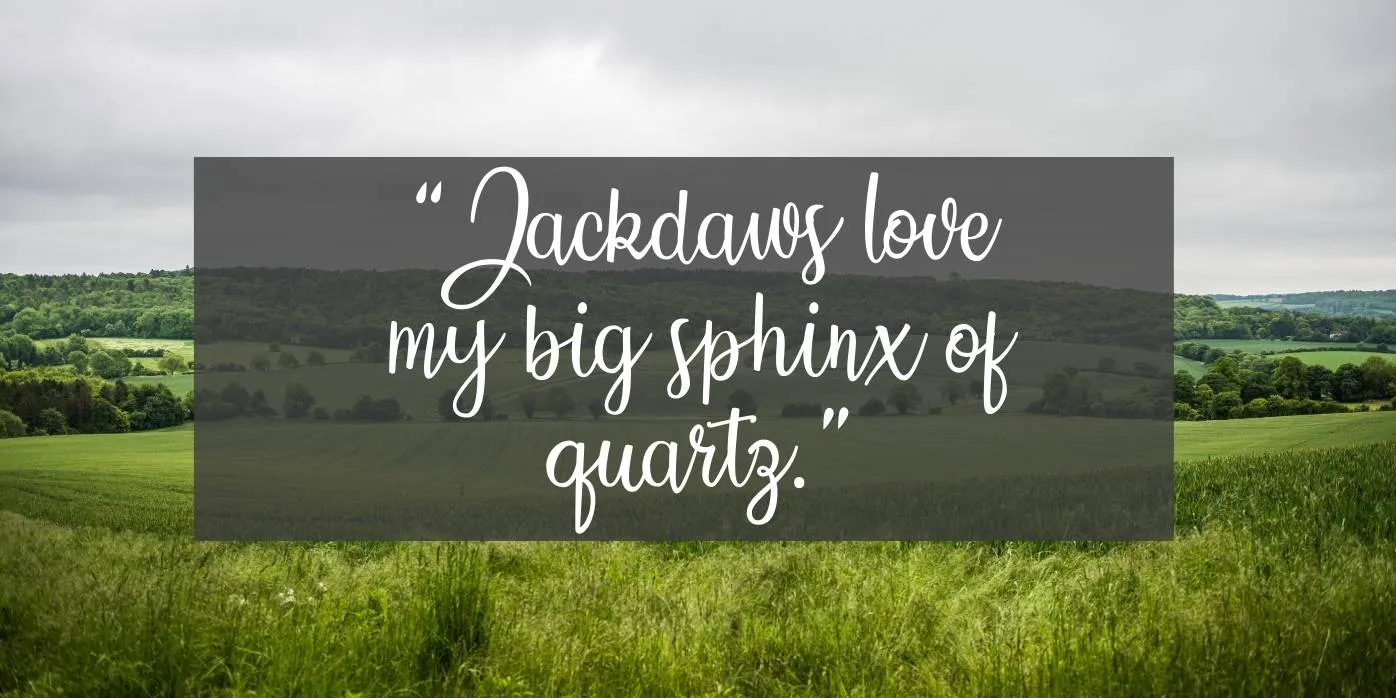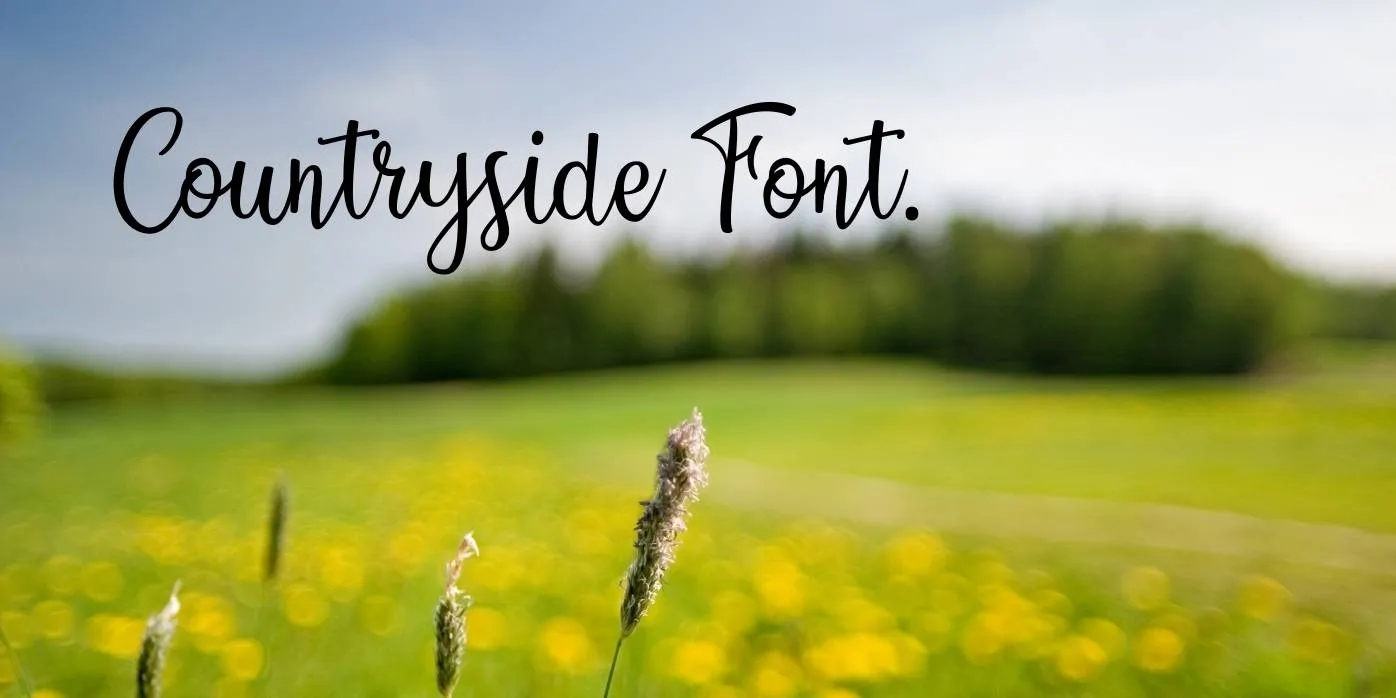
Countryside Font
Today we are introducing the most popular and stunning font family that has massive fame in designing fields known by the name Countryside Font. This classy font belongs to the Handwritten font family. In the year 2018, this attractive font family was designed by very famous and elegant designer Billy Argel. This beautiful typeface is available in 2 unique weights.
This modern weight makes your projects beautiful. These are known by the name Regular and Two Regular. This amazing font family comes in more than 311 unique and modern Glyphs. Also, this stylish font family is available in 250 famous and popular characters.
These characters increase overall performance. This amazing font gives the best facility of copy and paste function. Alice Wonderland Font is one of the most popular and alternative fonts to this cozy font. This font is suitable for CSS Family.